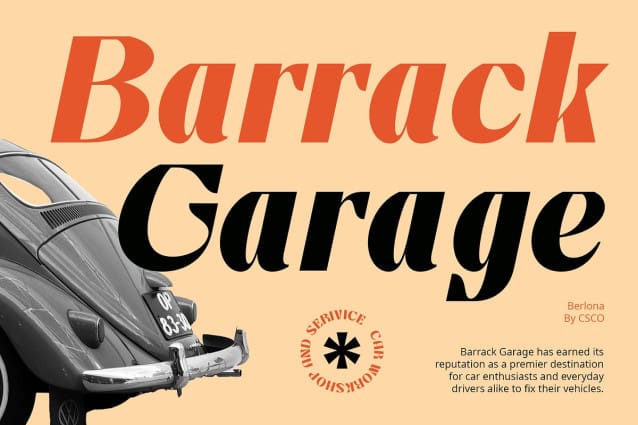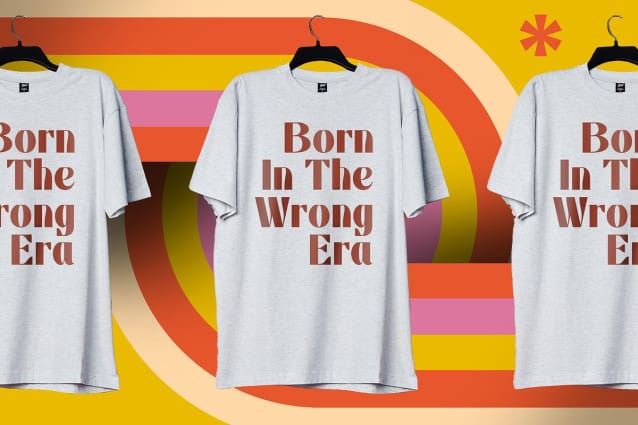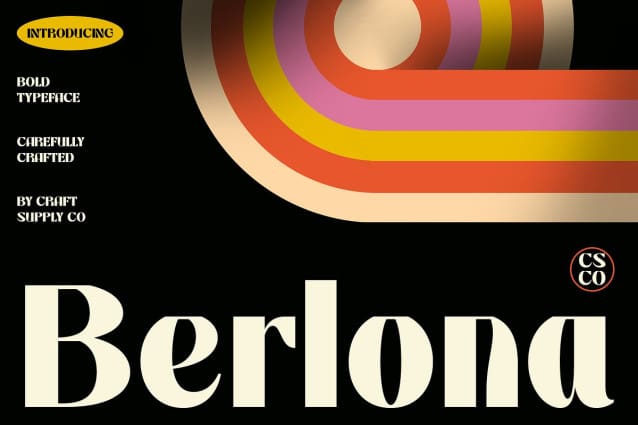
Berlona Font
Berlona Font – Bold Font is a sans-serif typeface that combines thick strokes and vintage aesthetics, offering a bold yet nostalgic appeal. Ideal for designs aiming to evoke a retro vibe, this font brings a distinctive charm to posters, logos, and various creative projects.
With its thick strokes and retro-inspired details, Berlona Font – Bold Font embraces nostalgic design elements while maintaining readability and impact. Whether used in digital or print media, this font adds a touch of classic elegance and boldness to any visual composition.
Perfect for making bold statements, Berlona – Bold Font stands out with its strong presence and vintage flair. Its robust character and nostalgic appeal make it suitable for branding, headlines, and promotional materials where a memorable and timeless aesthetic is desired.
From branding campaigns to editorial layouts, this font offers versatility across various design projects. Its retro flair and bold design ensure your message is conveyed with style and a hint of vintage charm.